Lock by Mark Bloom and Diana Ovezea
Rose Fang by Tommy Øberg
Looking to convey a sense of bold fierceness in your design projects? Then consider Rose Fang, which marries sharp elegance with dark allure.
Inspired by the interplay of light and shadow, this striking display typeface captures both structure and emotion in its angular forms. As the name suggests, its jagged, precise strokes resemble vampire fangs or rose thorns, giving it a sense of predatory grace.
Rose Fang is designed by Tommy Øberg of TØ—Labs and has four distinct styles: Sharp, Sharp Outlined, Rounded and Rounded Outlined. We feel it’s particularly well-suited for fashion branding, album covers and edgy magazine layouts. More broadly, its strong personality makes it ideal for headlines and logo designs that need to make a statement.
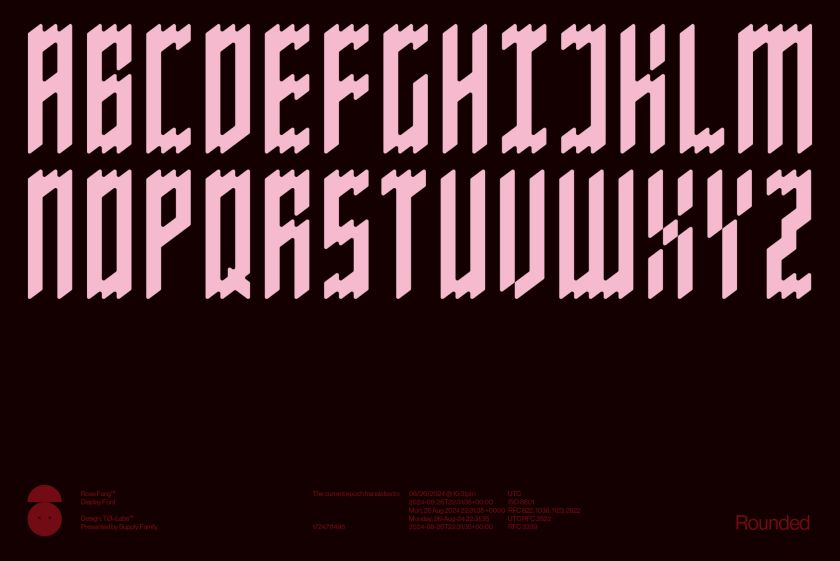
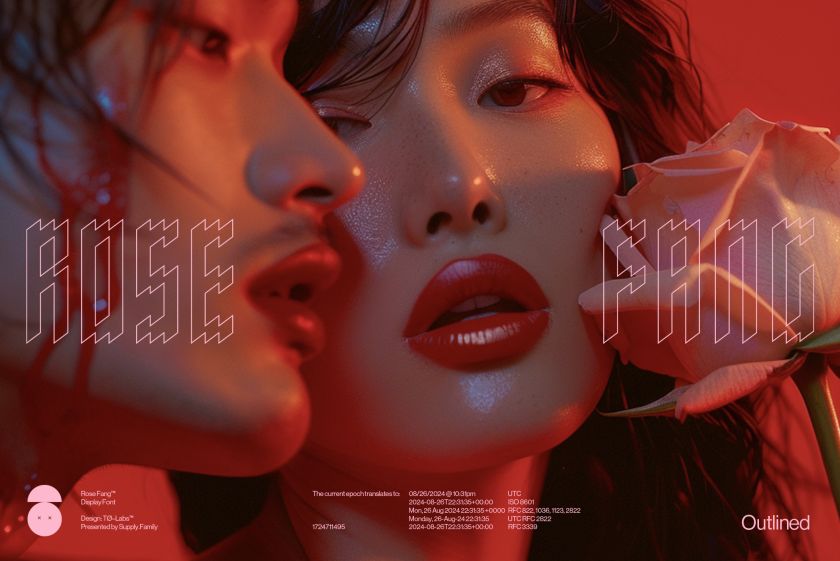
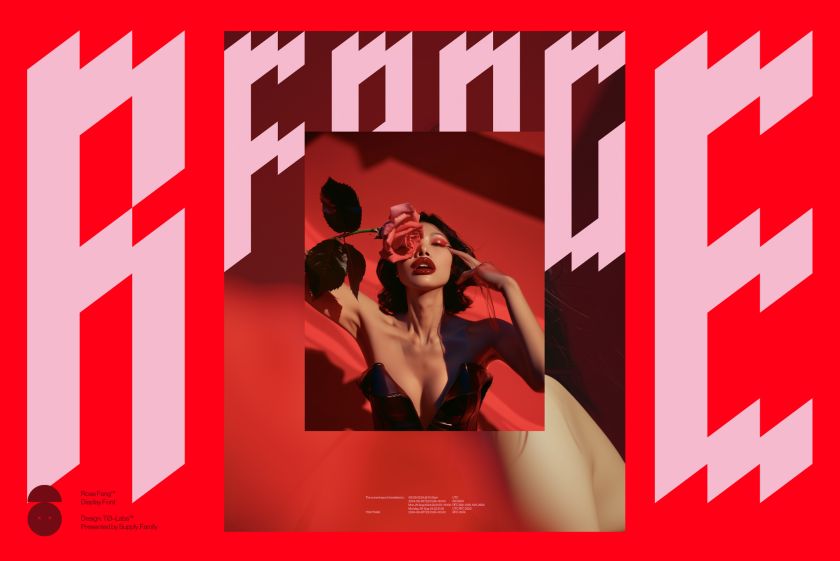
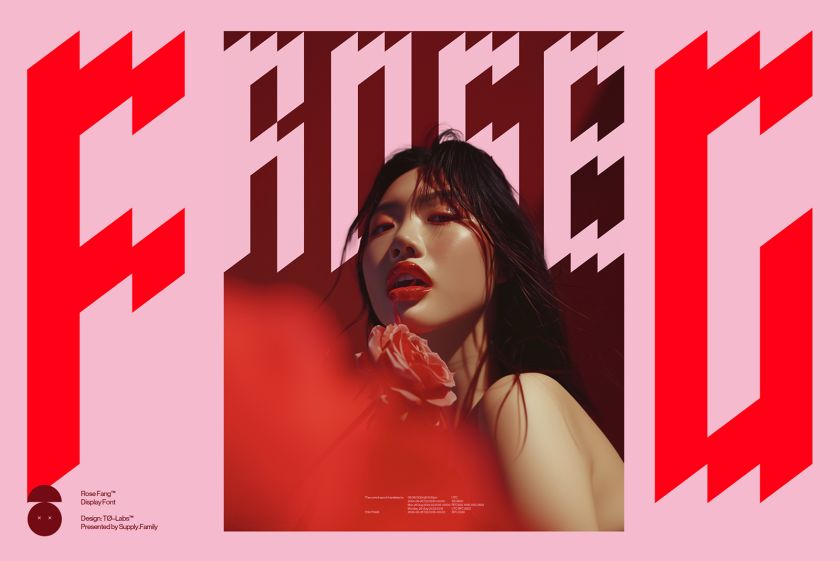
Lock by Mark Bloom and Diana Ovezea
Lock, a superfamily designed by Mark Bloom and Diana Ovezea for CoType Foundry, achieves a feat many type designers aim for but rarely achieve: seamlessly blending tradition with contemporary style.
Drawing inspiration from calligraphic strokes, Lock’s letter shapes have been carefully crafted to achieve a modern humanist design. The family comprises four subfamilies – Serif, Serif Stencil, Sans, and Sans Stencil – each featuring six weights and glyph alternates and arrows. The Serif version is sharp and outspoken, while the Sans is blunt and understated. Each version offers a playful stencil companion, completing this comprehensive type system.
Overall, Lock’s versatility makes it suitable for various applications, from editorial design to branding projects. Its blend of traditional and modern elements helps designers bridge the gap between classic and contemporary aesthetics, making it a valuable addition to any toolkit.
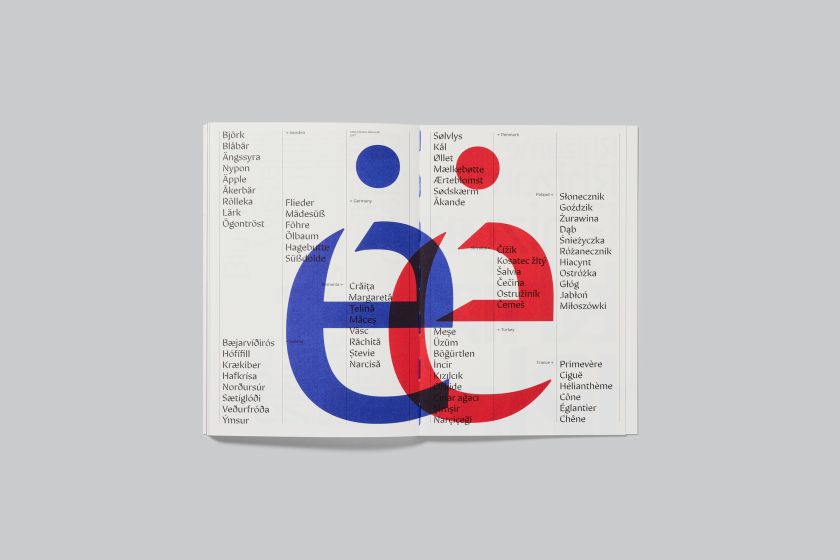
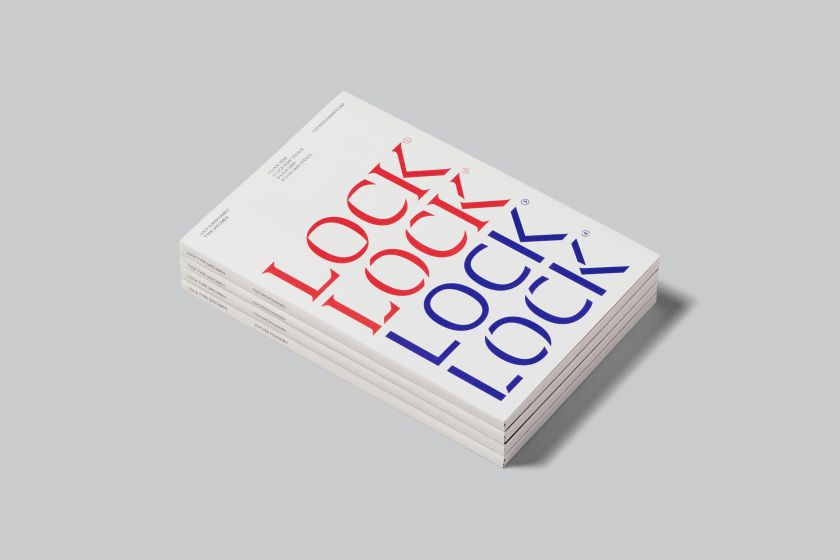
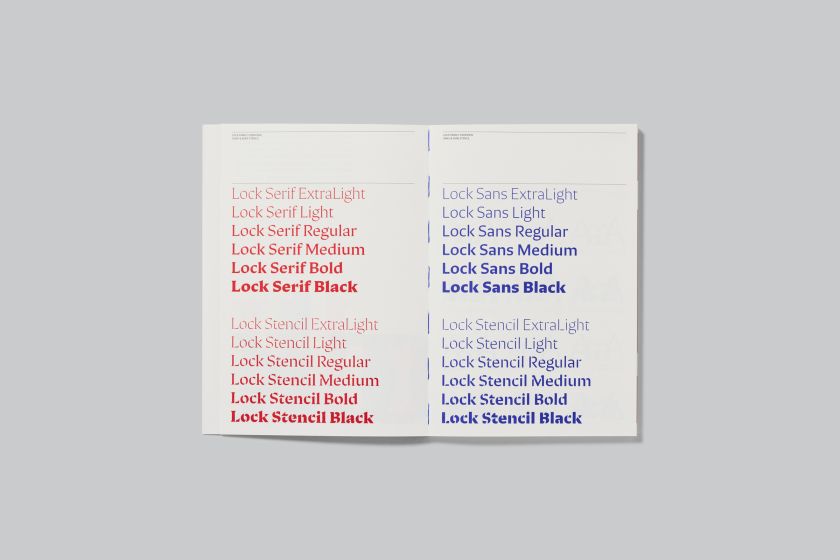
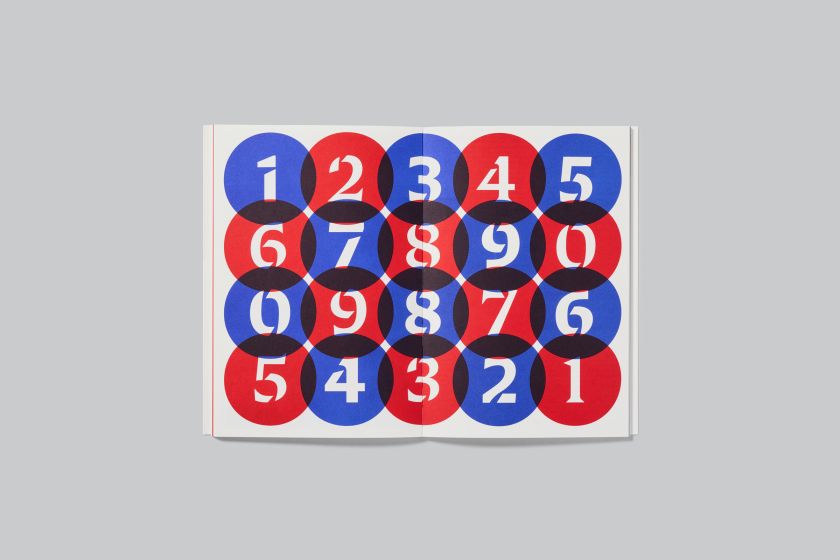
Penelope by Timothée Berger
Created by self-taught designer Timothée Berger, Penelope is a distinctive typeface inspired by an unexpected source: a game of billiards and an old billiards manual.
This capital font features bold curves and a mix of narrow and wide lettering for added rhythm. It incorporates both rounded and sharp corners, creating a delightful irregularity. It also offers several alternative letters and ligatures, providing designers with a wealth of graphic possibilities.
We feel this font would shine in display applications, such as posters, headlines or logo designs. Its unique character makes it particularly suitable for projects in the sports, entertainment, or lifestyle sectors, where a blend of retro charm and modern flair is desired.
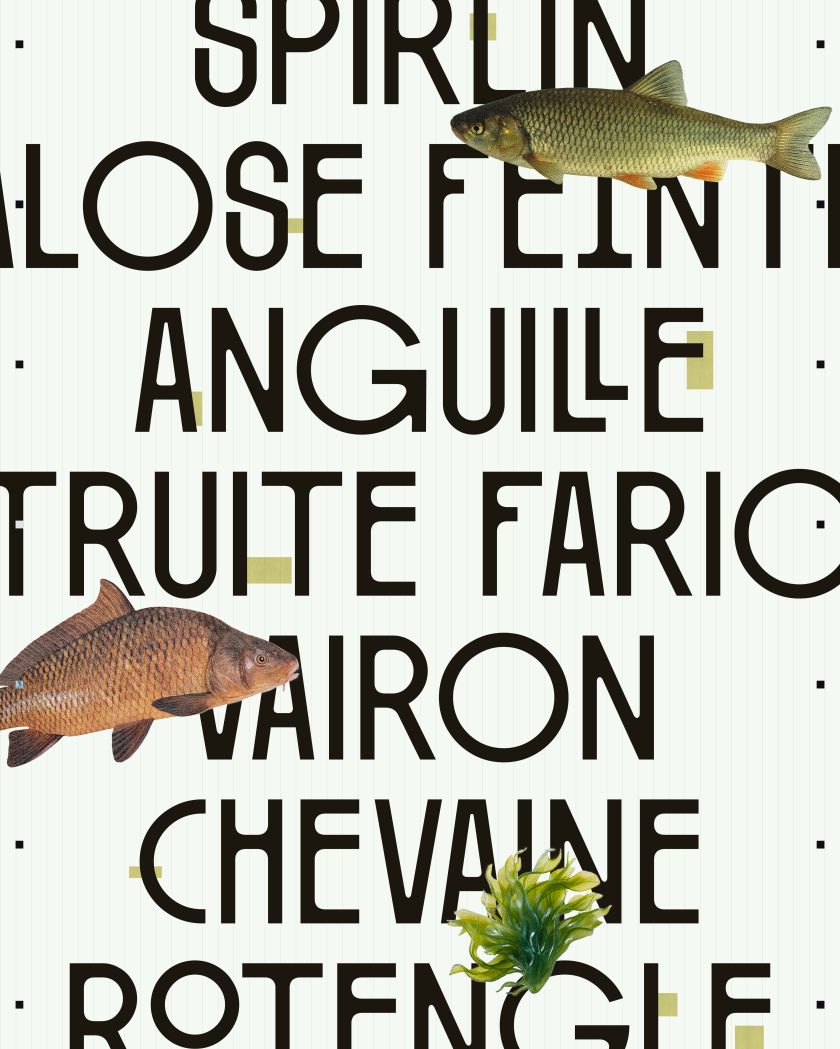
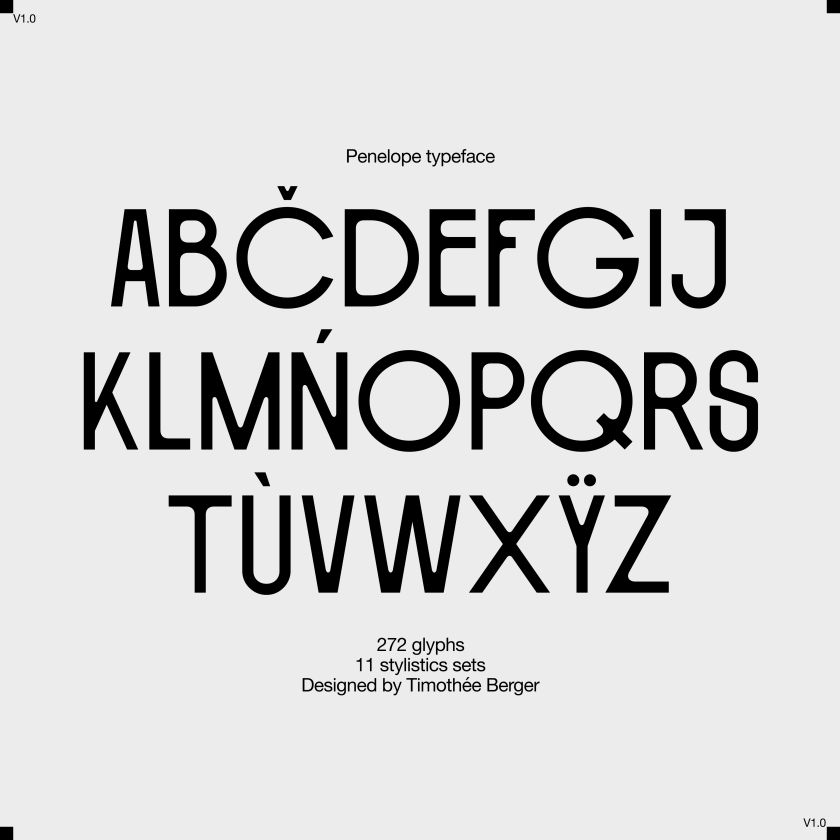
GT Pantheon by Tobias Rechsteiner & Noël Leu
GT Pantheon, designed by Tobias Rechsteiner and Noël Leu for Grilli Type, is an innovative typeface that reflects a harmonious blend of traditional ideals and modernist shapes.
Inspired by the Pantheon in Rome, GT Pantheon is characterised by sharp, chiselled, and crisp forms and has a distinctly architectural quality. It is built around three archetypes: Display, Text, and Micro, each crafted to perform optimally across different size ranges.
This versatile font excels in editorial design, particularly for architecture or design magazines. Its range of styles makes it a strong choice for branding projects, especially in fields such as design, construction, or cultural institutions.
Marsam is the advanced release of an expansive 20 font typeface family intended for both commercial and editorial applications.